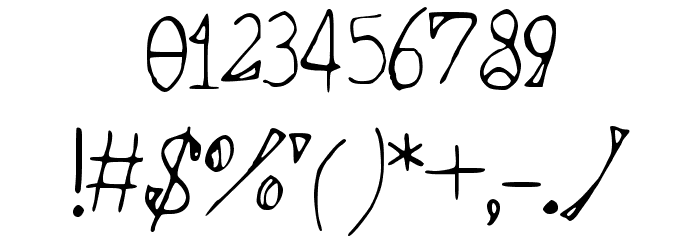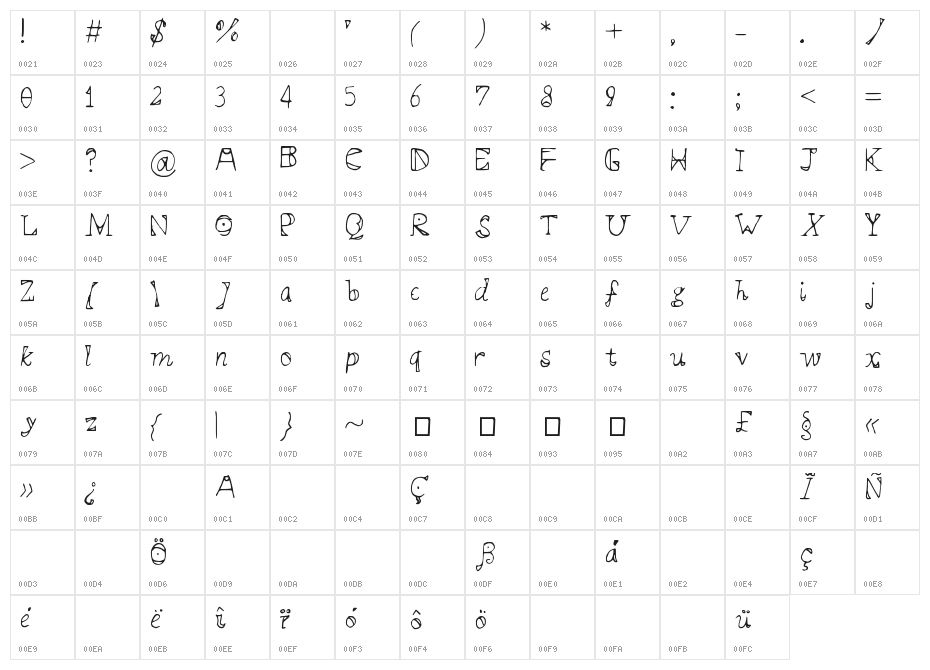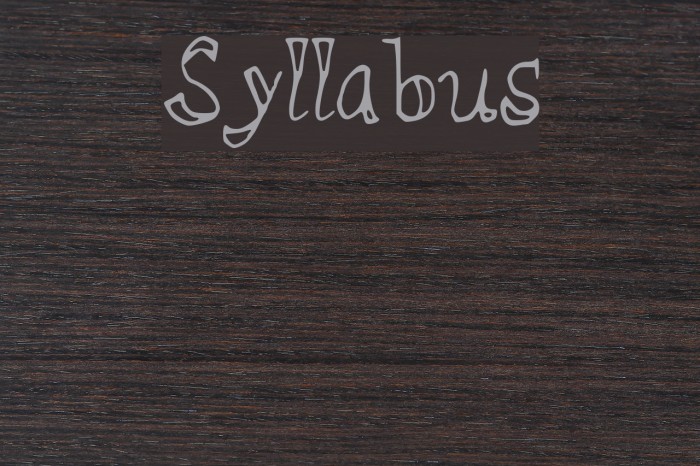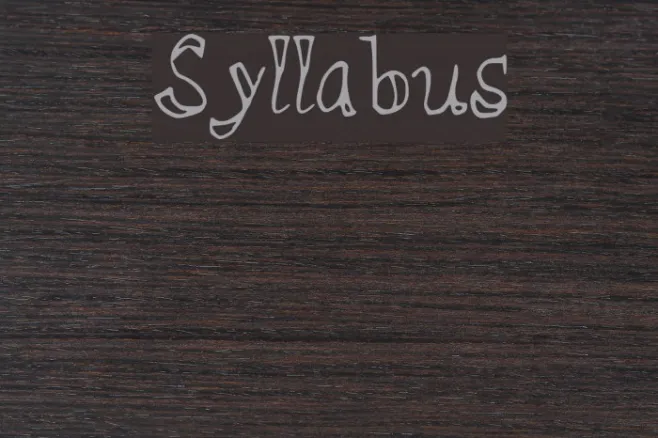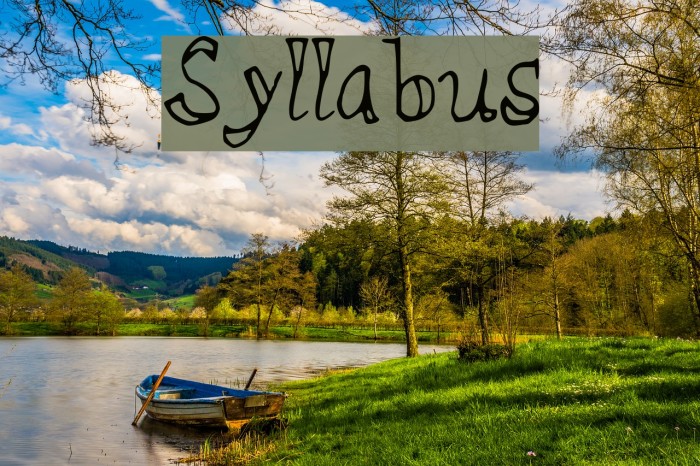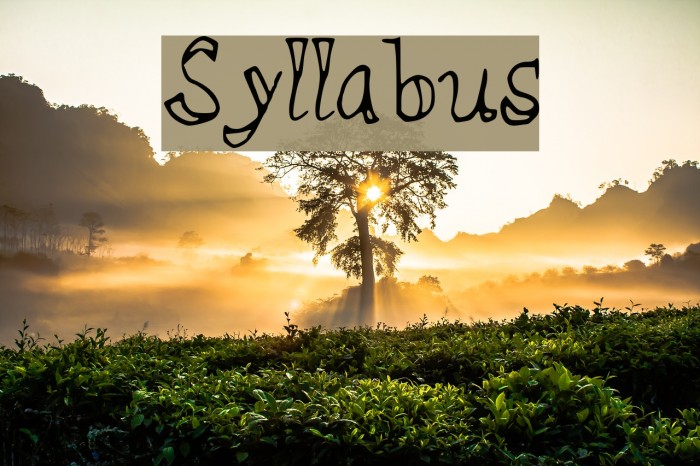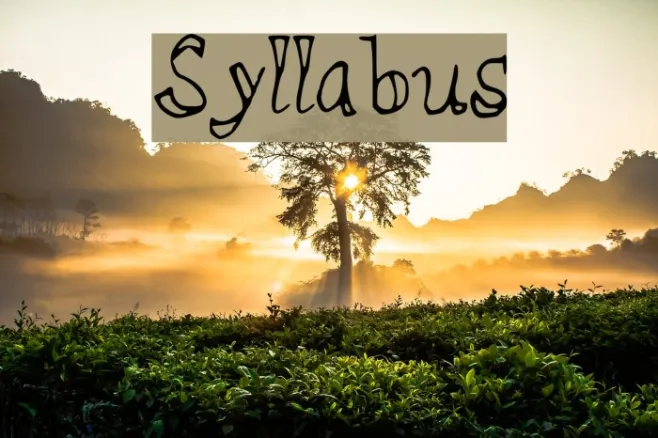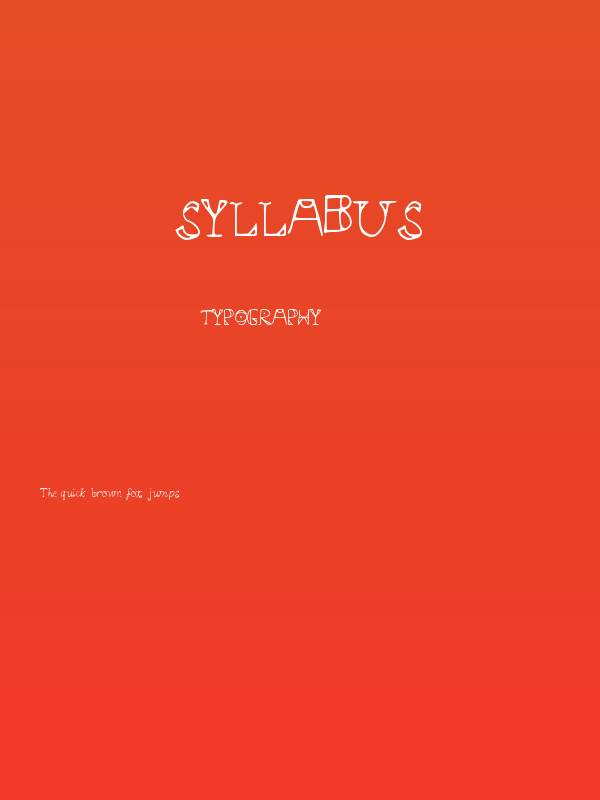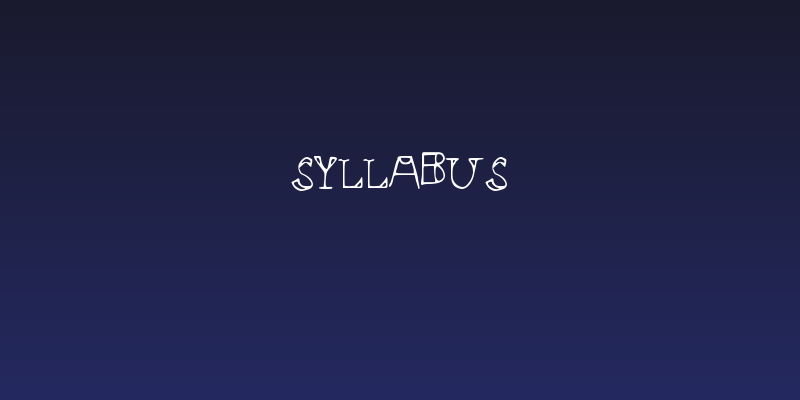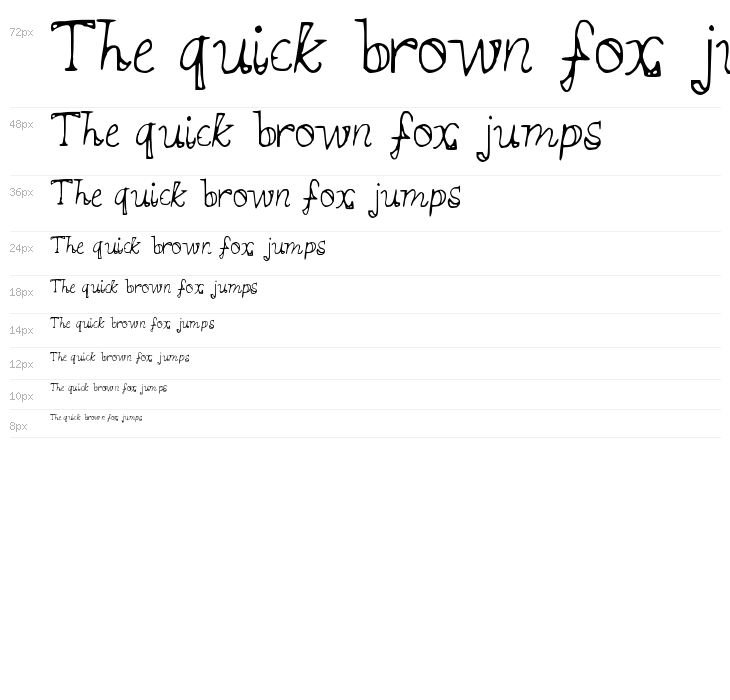
Syllabus Font
Syllabus Description
This font features a whimsical and playful design, characterized by its irregular and hand-drawn appearance. The uppercase letters exhibit a quirky style with uneven lines and varying stroke widths, giving each character a unique personality. The lowercase letters maintain this playful aesthetic, with some letters featuring loops and curls that add to the font's charm. The numbers are consistent with the overall style, maintaining the same hand-drawn, slightly irregular look. Special characters are creatively designed, fitting seamlessly with the rest of the font. This font's distinctiveness makes it ideal for projects that require a touch of creativity and individuality.
| Use Case | Headlines, Logos, Artistic projects |
| Proposed Projects | Ideal for children's books, creative posters, playful branding, and artistic invitations. |